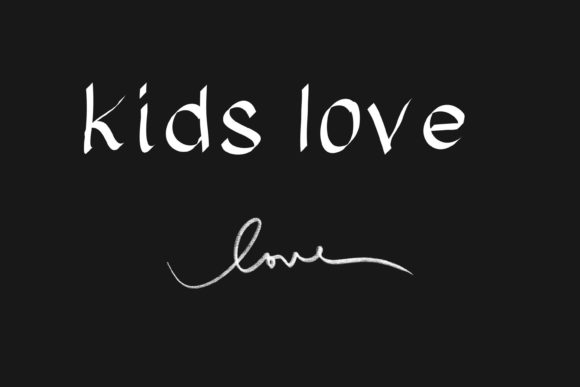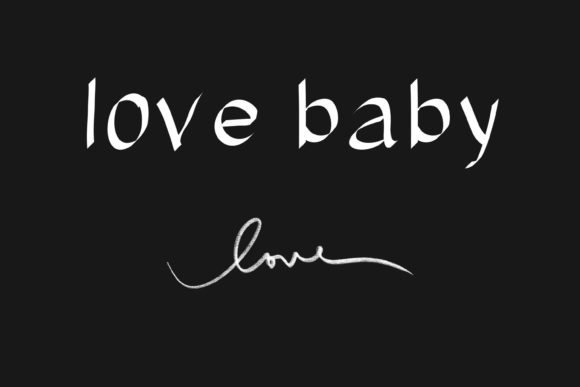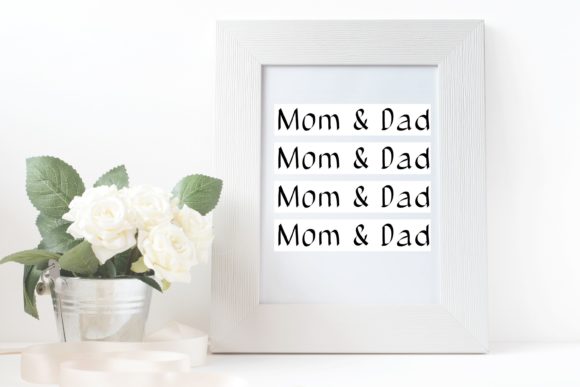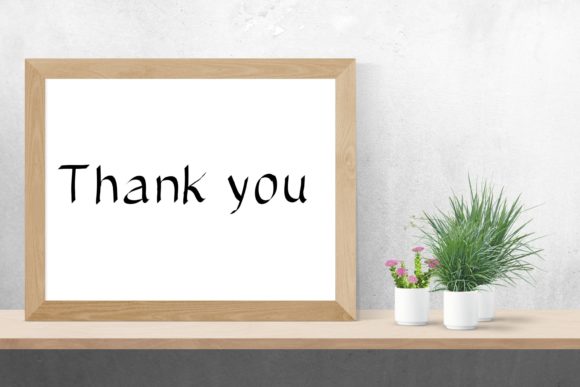
Baby Wow Font: Elevate Your Designs with a Simple yet Timeless Handwritten Style
In the world of design, fonts play a crucial role in conveying the tone and personality of a brand or creative project. For designers and crafters looking for a font that exudes youthfulness and simplicity, Baby Wow is an excellent choice. This beautiful handwritten font is perfect for a wide range of applications, from logos and t-shirts to branding and more. In this article, we’ll dive into the features and benefits of Baby Wow Font and explore how it can take your creations to the next level.
The Charm of Baby Wow Font
Baby Wow Font is a simple and timeless handwritten font that boasts a youthful design. Its clean lines, subtle curves, and charming character make it an ideal choice for designers seeking a font that is both elegant and approachable. The font’s simplicity ensures that it remains versatile and can be used in various contexts, from digital platforms to print materials.
Key Features of Baby Wow Font
- Handwritten style: Baby Wow Font features a beautiful handwritten style that adds a personal touch to any design.
- Youthful design: The font’s youthful design makes it perfect for brands and projects targeting a younger audience.
- Simple and timeless: Baby Wow Font’s simplicity ensures that it remains timeless and won’t go out of style anytime soon.
- Versatile: The font is versatile and can be used in various applications, including logos, t-shirts, branding, and more.
Baby Wow Font is an excellent choice for designers and crafters looking to add a personal touch to their creations. Whether you’re designing a logo, creating a brand identity, or making a t-shirt, this font is sure to impress. Its lovely design and versatility make it an ideal choice for a wide range of projects, including:
- Logos: Create a memorable logo that stands out with Baby Wow Font.
- T-shirts: Design eye-catching t-shirts with a font that is both stylish and easy to read.
- Branding: Develop a strong brand identity with a font that exudes youthfulness and simplicity.
- Stationery: Add a personal touch to your stationery, including business cards, letterheads, and more.
Benefits of Using Baby Wow Font
Using Baby Wow Font in your designs offers several benefits, including:
- Unique identity: The font’s unique design helps create a distinctive identity for your brand or project.
- Easily readable: Baby Wow Font is easy to read, making it perfect for body text and headings.
- Customizable: The font can be customized to fit your project’s specific needs, including adjusting font sizes, colors, and more.
- Time-saving: With Baby Wow Font, you can save time and effort in designing and creating your projects.
In conclusion, Baby Wow Font is a simple yet timeless handwritten font that is perfect for designers and crafters looking to add a personal touch to their creations. Its youthful design, versatility, and ease of use make it an excellent choice for a wide range of projects, from logos and t-shirts to branding and more. With Baby Wow Font, you can take your designs to the next level and create stunning creations that leave a lasting impression.